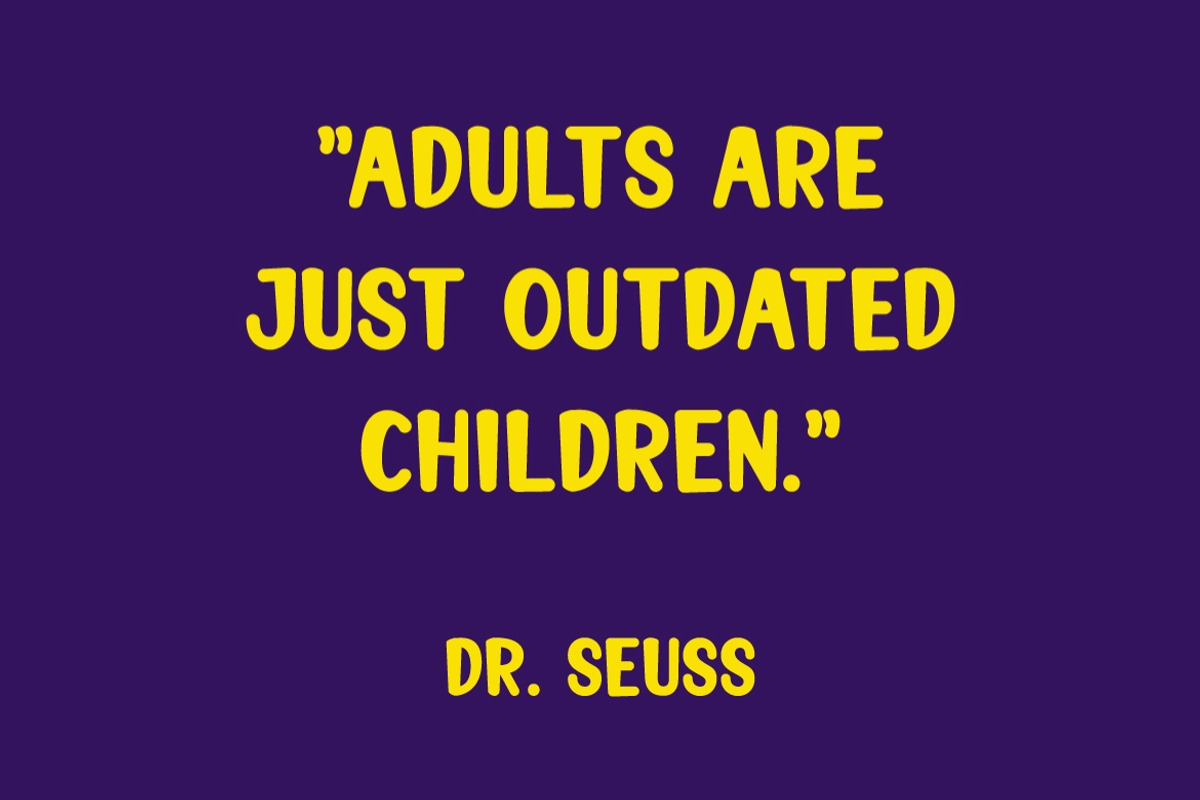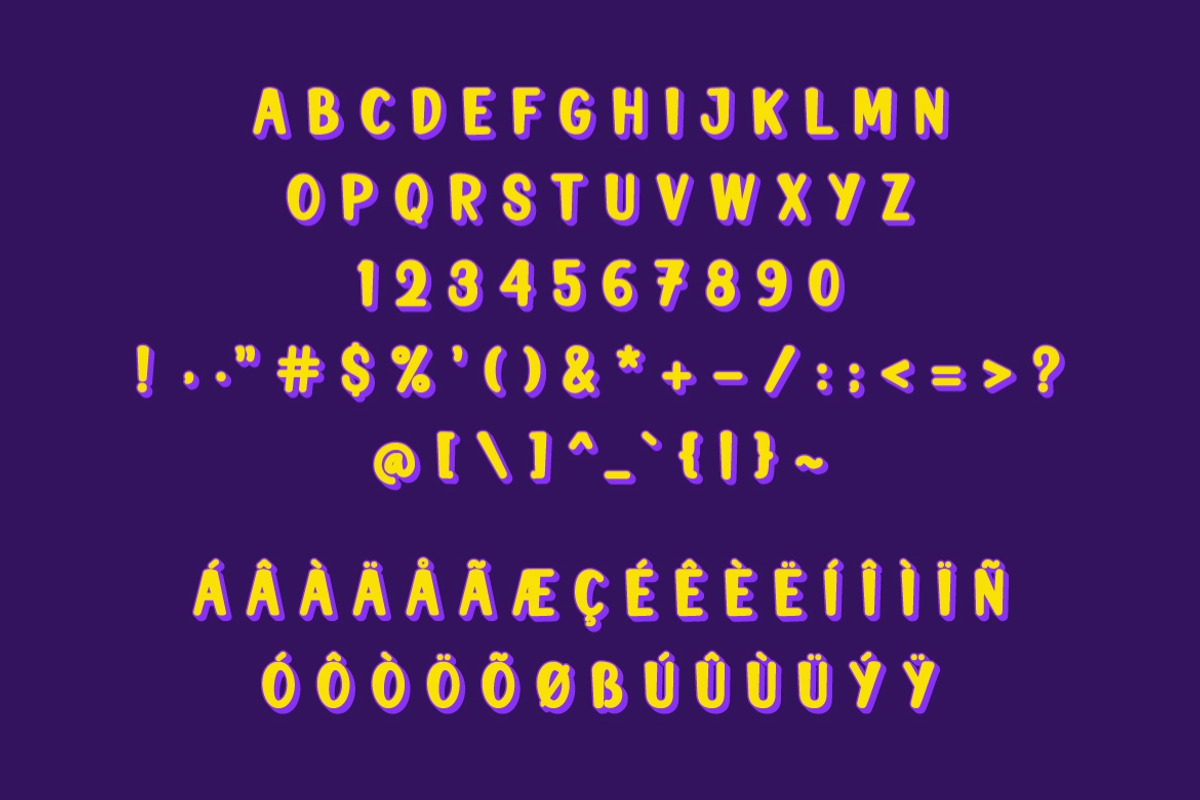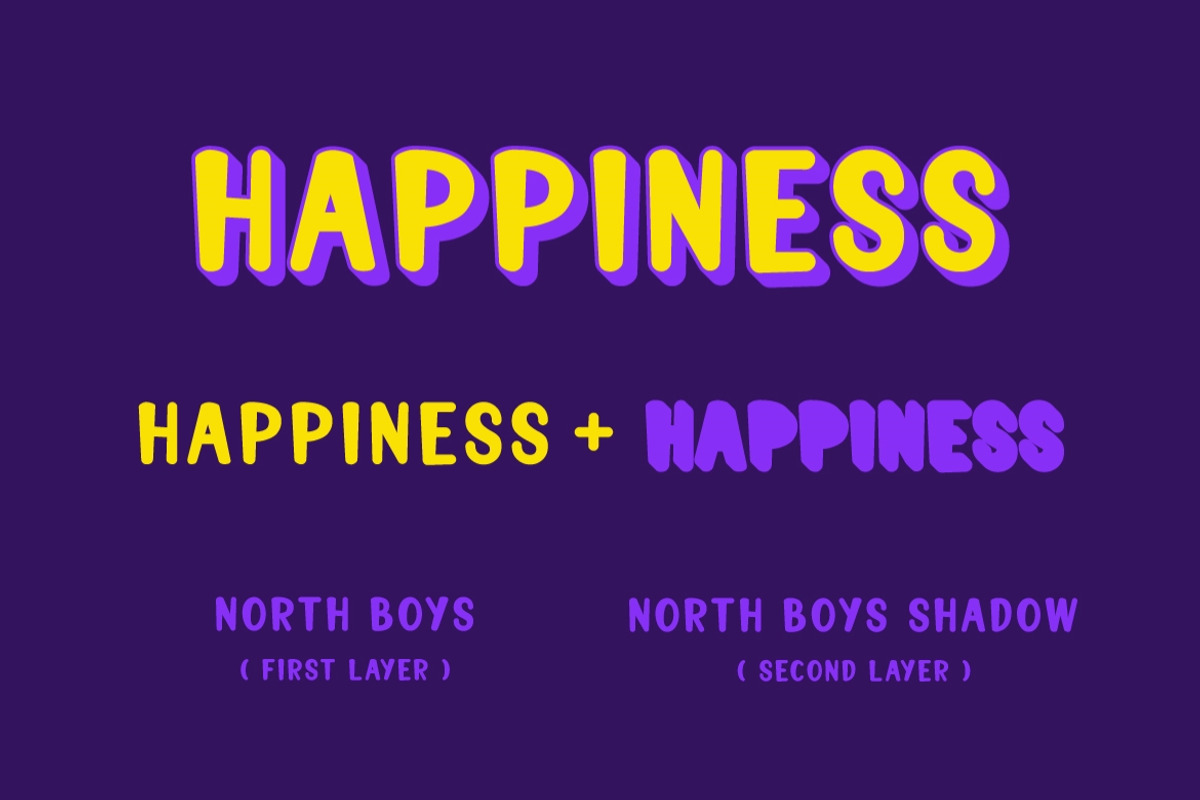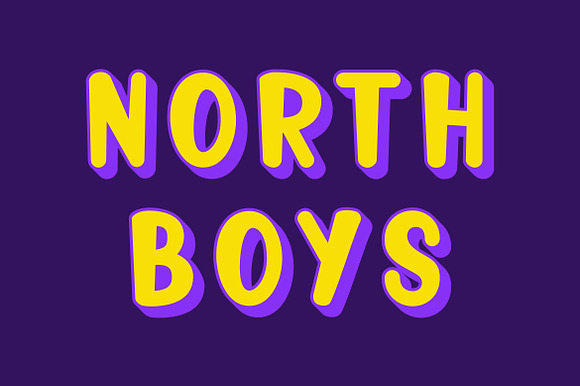
North Boys - Playful Layered Font
North Boys is playful and layered font. Crafted specifically for kids related such as ; family, children, kindergarten, playground, cartoon, comic, etc. We made it layered so the user can use different color to make it colorful because genetically kids love so many colors !
- North Boys Regular
- North Boys Shadow Regular